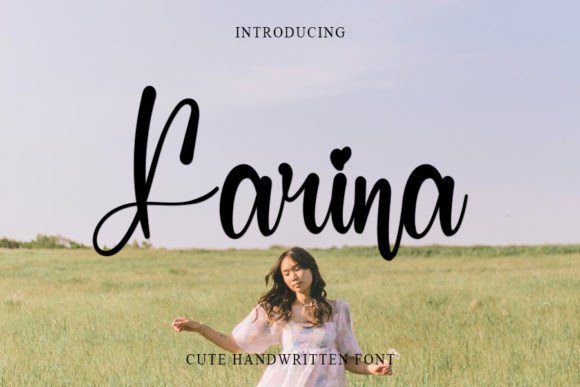
Step into the enchanting realm of Karina, where words dance with grace and elegance upon the canvas of your designs. This exquisite script font, meticulously crafted by PiPi Creative, welcomes you to a world of limitless creative possibilities.
Karina's allure lies in its captivating blend of charm and sophistication. Each letter flows effortlessly, guided by an invisible hand, leaving a trail of visual delight upon your projects. Its timeless style transcends the boundaries of trends, ensuring that your creations will remain eternally captivating.
Embrace the allure of Karina and watch as your designs blossom into masterpieces. Whether you're crafting invitations that evoke a sense of intimate grandeur or creating marketing materials that demand attention, Karina's presence elevates every word, imbuing it with an air of refined elegance.
Karina's versatility knows no bounds. Its graceful curves lend themselves perfectly to print design, where it transforms ordinary pages into canvases of artistry. Let your imagination soar as you envision your designs adorned with Karina's timeless essence, each letter a testament to your discerning taste.
Immerse yourself in the world of Karina, where beauty and functionality intertwine seamlessly. Its gentle strokes evoke a sense of warmth and authenticity, inviting your audience to connect with your message on a deeper level.
Karina is more than just a font; it's an extension of your creative spirit. Embrace its allure and embark on a journey where your designs will captivate, inspire, and leave an unforgettable mark upon the world.
From enchanting invitations to captivating marketing materials, Karina empowers you to express your creativity in ways that resonate with your audience. Its timeless elegance will elevate your designs to new heights, ensuring that your message leaves a lasting impression.